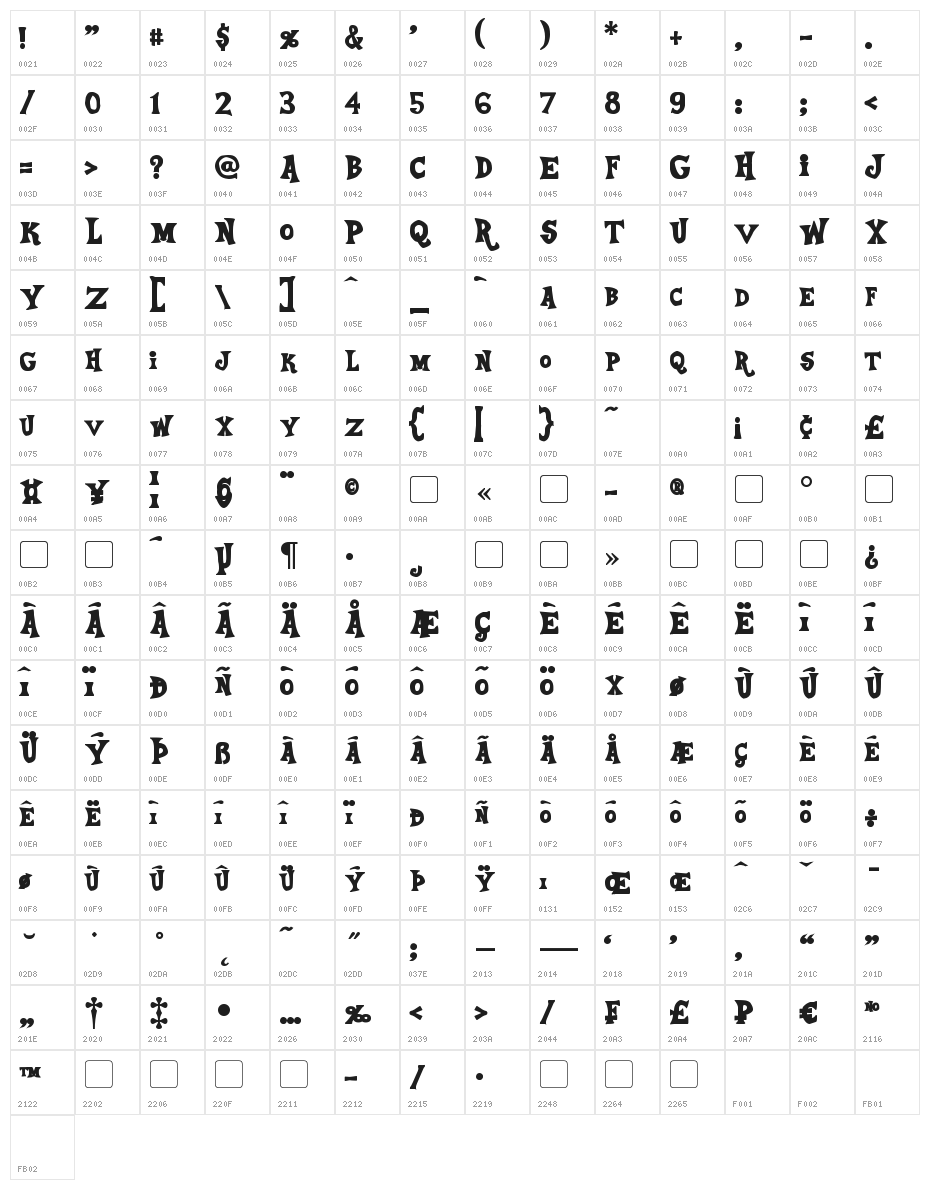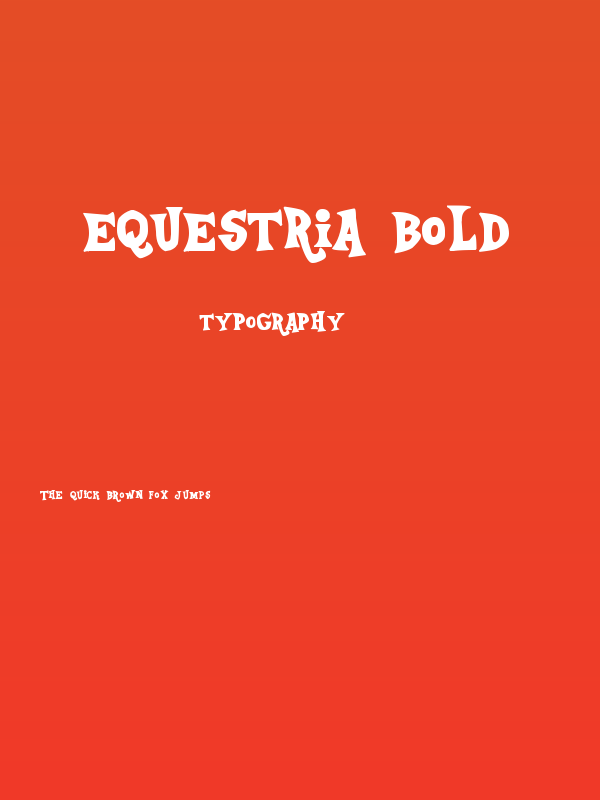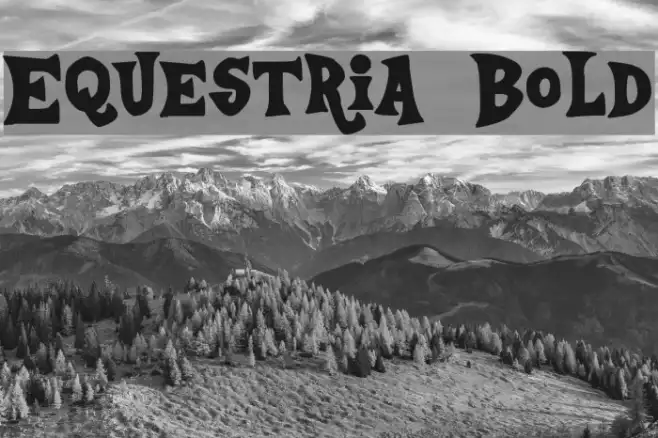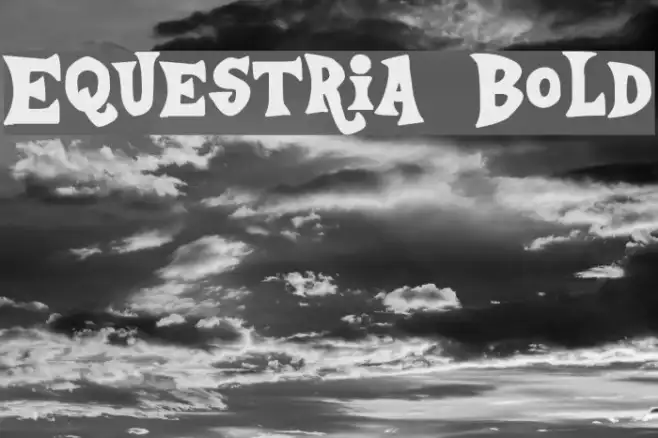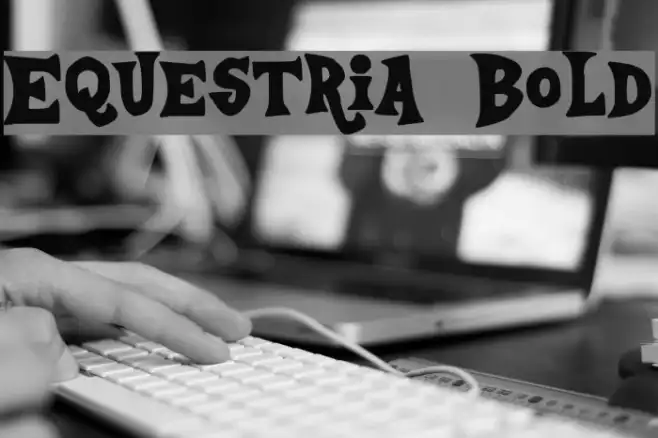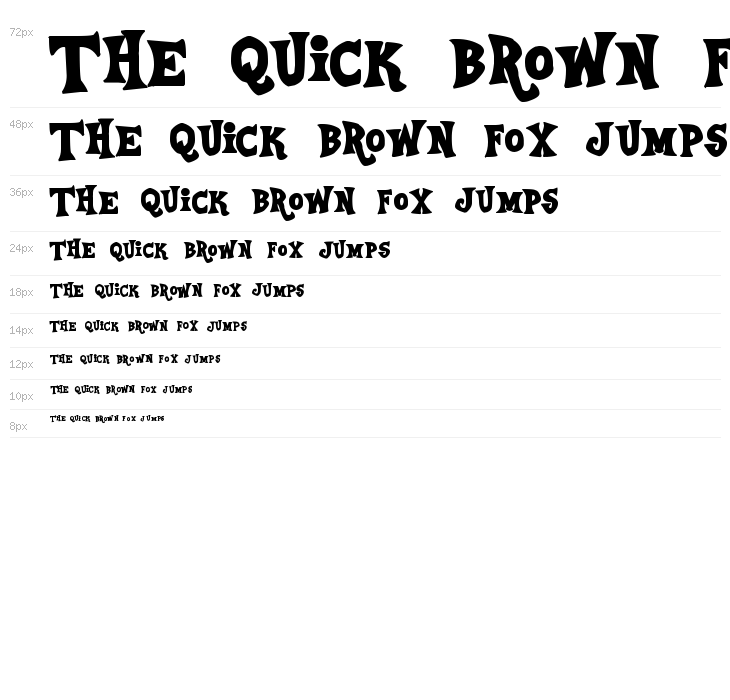
Equestria Bold Font
Equestria Bold Description
This font features a bold and playful design with a whimsical flair. The characters are thick and robust, with a slight slant that adds a dynamic feel. The strokes are uneven, giving it a hand-drawn appearance, while the serifs are exaggerated and prominent. This style is reminiscent of cartoon or fantasy themes, making it ideal for creative and fun projects. The numbers and special characters maintain the same lively style, ensuring consistency across all text elements.
| Proposed Projects | Ideal for children's books, fantasy-themed posters, playful branding, and creative invitations. |